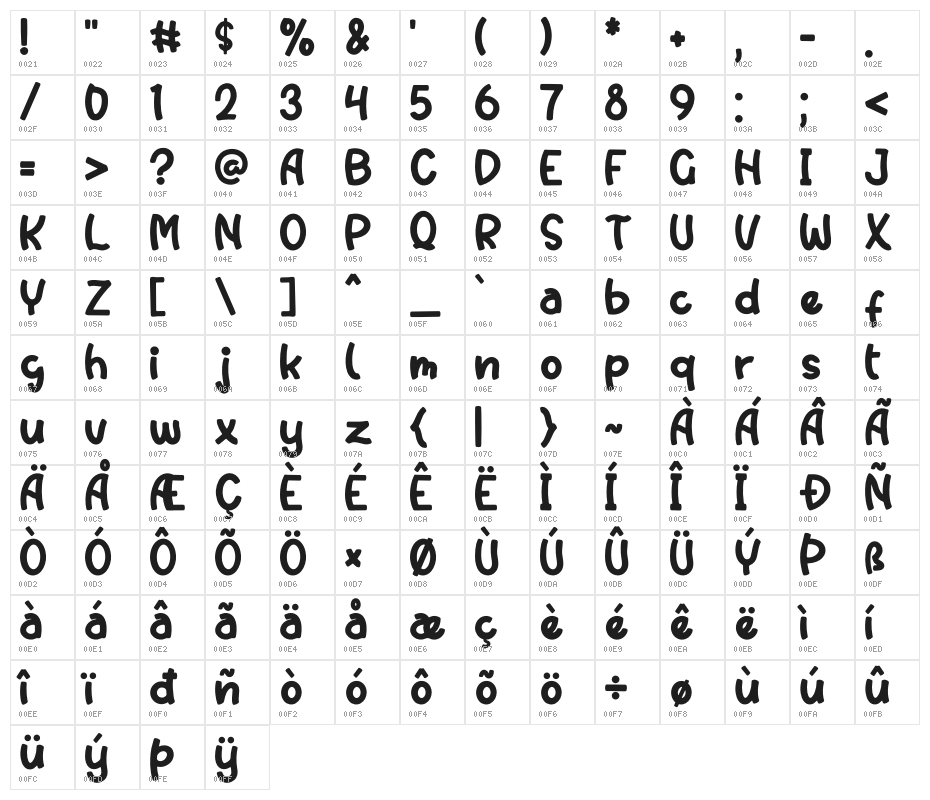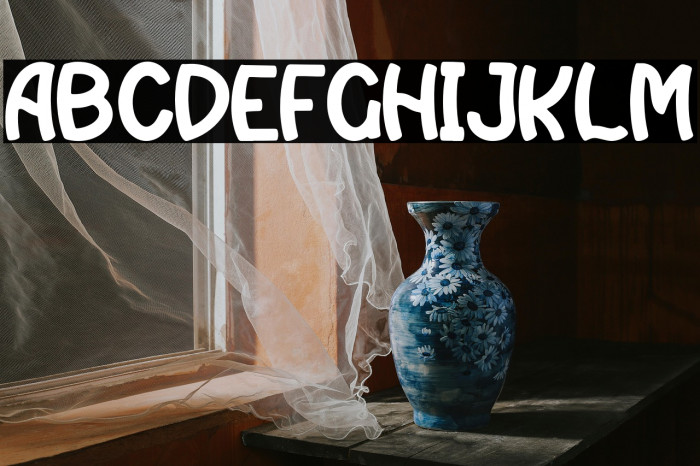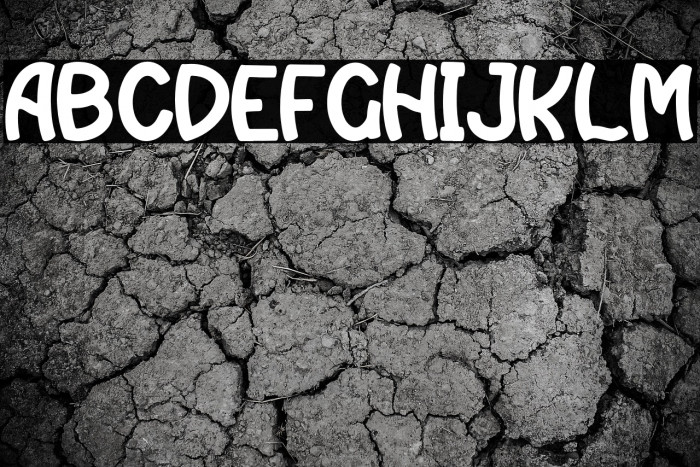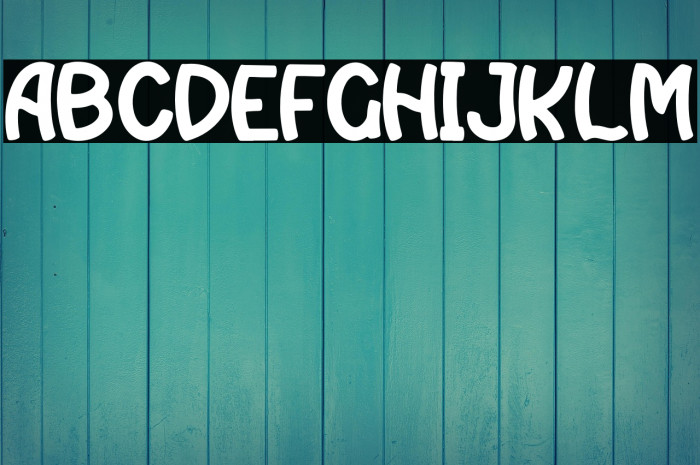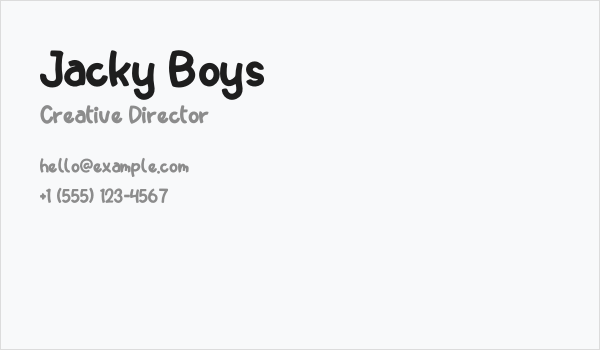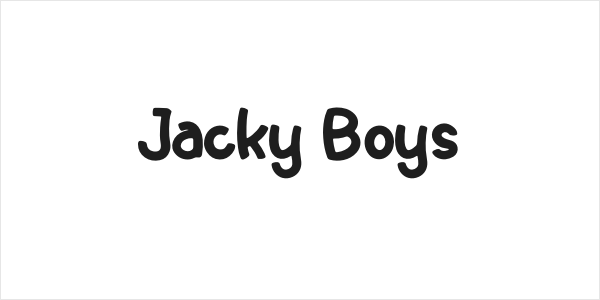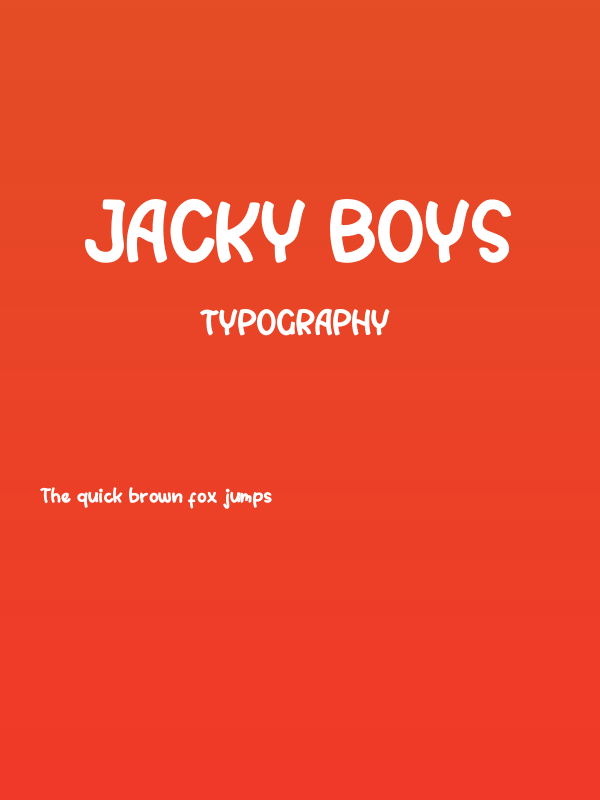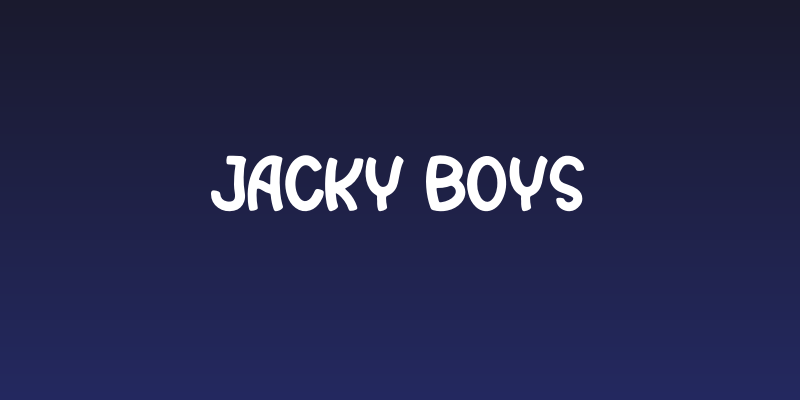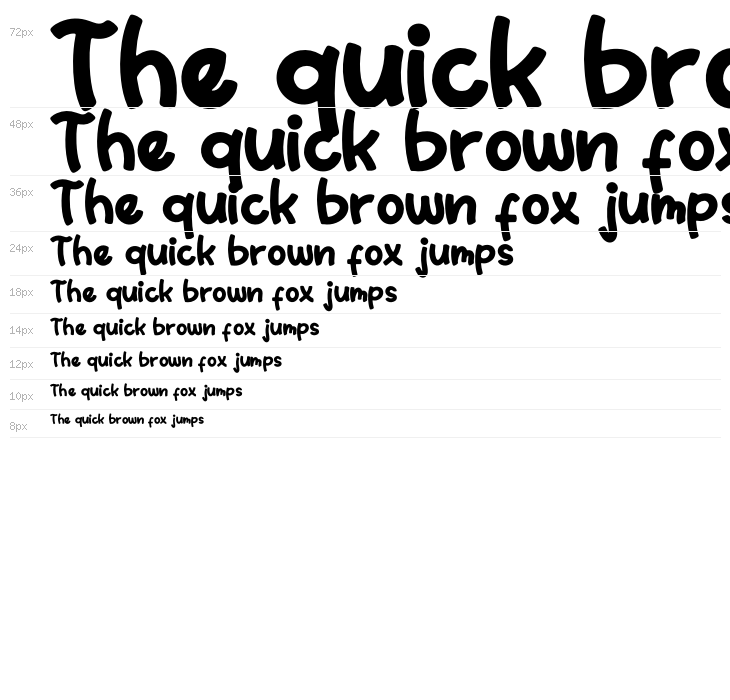
Jacky Boys Font
Jacky Boys Description
This playful and bold font features a handwritten style with a lively and energetic appearance. The letters are rounded and slightly irregular, giving it a casual and friendly feel. The uppercase and lowercase characters maintain a consistent style, with the lowercase letters being slightly smaller and more compact. The numbers and special characters follow the same playful design, making them cohesive with the rest of the font. This font is perfect for projects that require a fun and informal touch, such as children's books, posters, or playful branding.
| Proposed Projects | Ideal for children's books, playful branding, posters, and informal designs. |